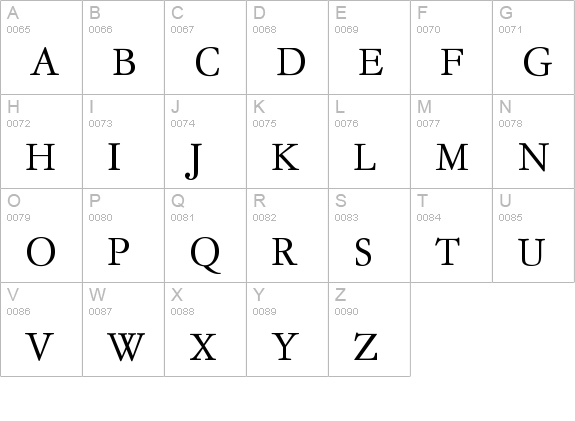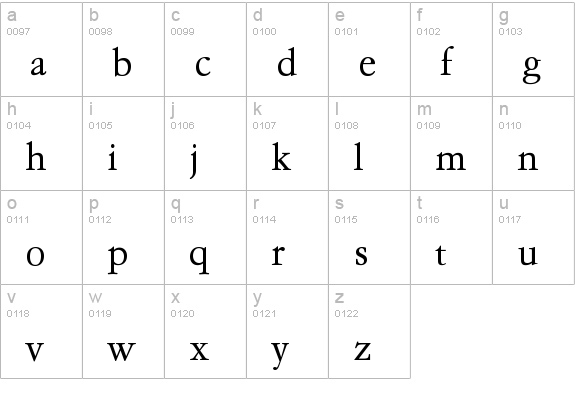
GaramondNo5EF-Light is a refined, elegant variant in the GaramondNo5EF typeface family \xE2\x80\x94 well suited to elegant body text, refined sub-headings, and luxury branding.
GaramondNo5EF-Light is a sophisticated and elegant font that exudes timeless charm and class. Its delicate strokes and graceful curves make it perfect for adding a touch of refinement to any design project. This light-weight variant of the GaramondNo5EF font family offers a subtle and understated look, ideal for conveying a sense of simplicity and sophistication. What's even better is that GaramondNo5EF-Light is available for free download at FontsMarket.com. This means you can easily access and use this beautiful font in your creative endeavors without any cost. Whether you're designing a logo, creating a website, or crafting a print publication, GaramondNo5EF-Light is sure to elevate your work with its timeless appeal. Download it now and add a touch of elegance to your projects!